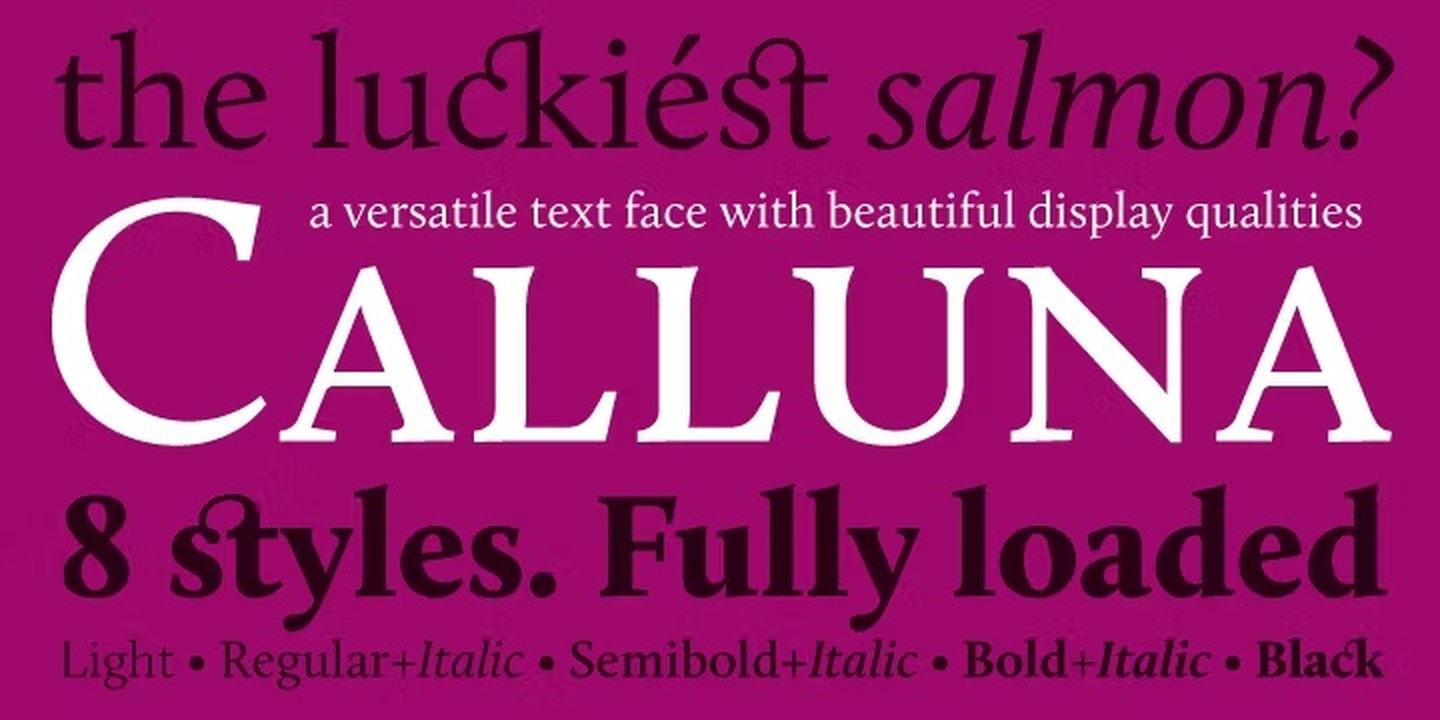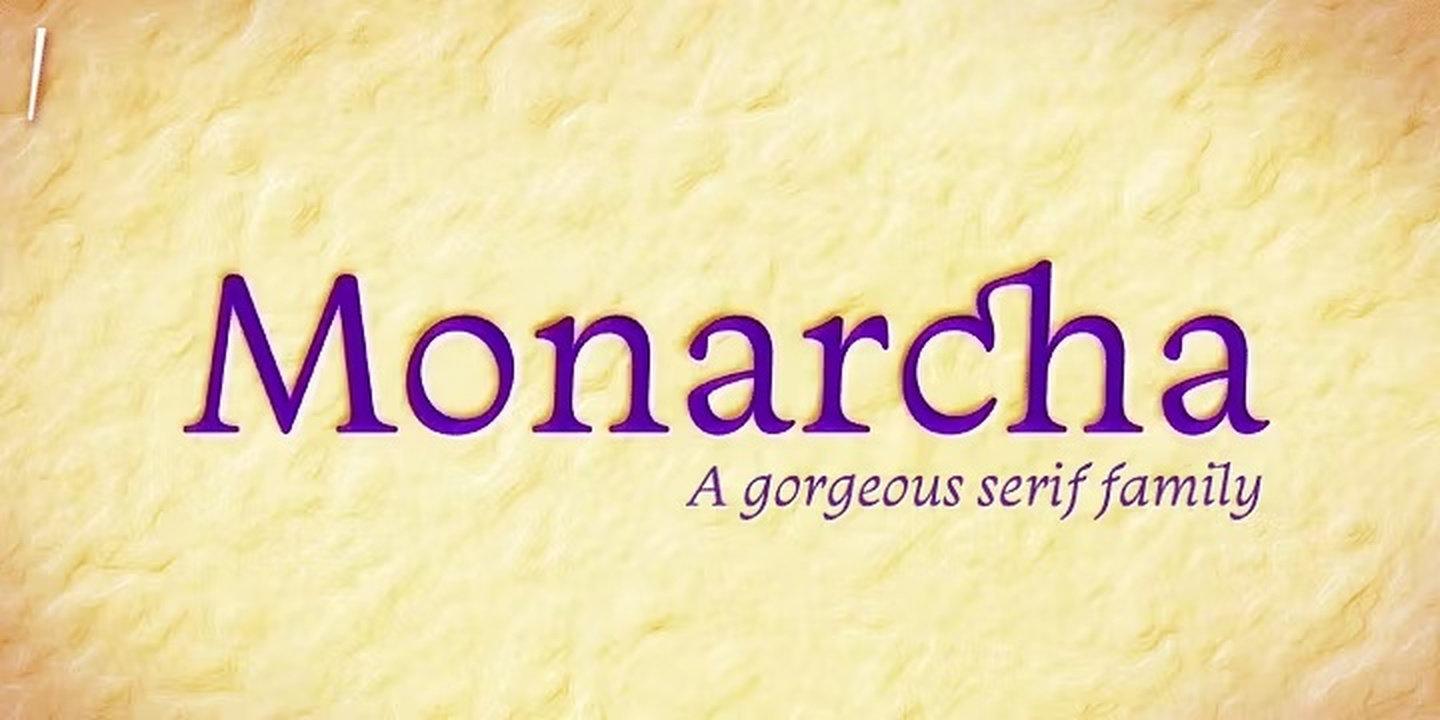
106 Serif Fonts for Logos, Branding and Print: Every Style in One Place
Serif fonts come in more moods than any other type style. The same small strokes at the ends of the letters can look romantic on a wedding invitation, serious in a book, loud on a poster or cosy on a coffee label.
This page brings together 106 serif fonts from five Fontspring collections on Font Inspiration, sorted into 17 styles. Every font appears only once, so each style shows you different typefaces. Find the style that fits your project, look at the previews and open the collection to see every font with notes on how to use it.
Quick Guide: Which Serif Style Do You Need?
| Your project | Serif style |
|---|---|
| Wedding invitations | Elegant Serif Fonts for Wedding Invitations |
| Skincare and beauty brands | Elegant Serif Fonts for Beauty Brands |
| Wine, candle and perfume labels | Elegant Serif Fonts for Luxury Labels |
| Fashion and luxury branding | High-Contrast Classic Serif Fonts |
| Logos and wordmarks | Bold Serif Fonts for Logos |
| Posters and campaigns | Bold Serif Fonts for Posters |
| Retro and vintage packaging | Vintage Bold Serif Fonts for Packaging |
| Cafés, labels and craft brands | Slab Serif Fonts |
| Menus and timeless brands | Classic Serif Fonts |
| Books and long reads | Classic Text Serif Fonts for Long Reads |
| Magazine covers and titles | Headline and Cover Serif Fonts |
| Blogs and websites | Contemporary Serif Fonts for Blogs and Websites |
29 Best Serif Fonts: Elegant, Classic, Bold and Slab
The widest mix in the cluster: four serif styles in one article, a good first stop when you are still deciding which direction fits your project.
Elegant Serif Fonts
High contrast, fine hairlines and graceful curves for weddings, beauty packaging and fashion headlines.
Classic Serif Fonts
Warm, readable serifs from book and newspaper printing for menus, books and brands that should feel timeless.
Bold and Retro Serif Fonts
Heavy weights with soft or flared serifs for posters, packaging and social media headlines.
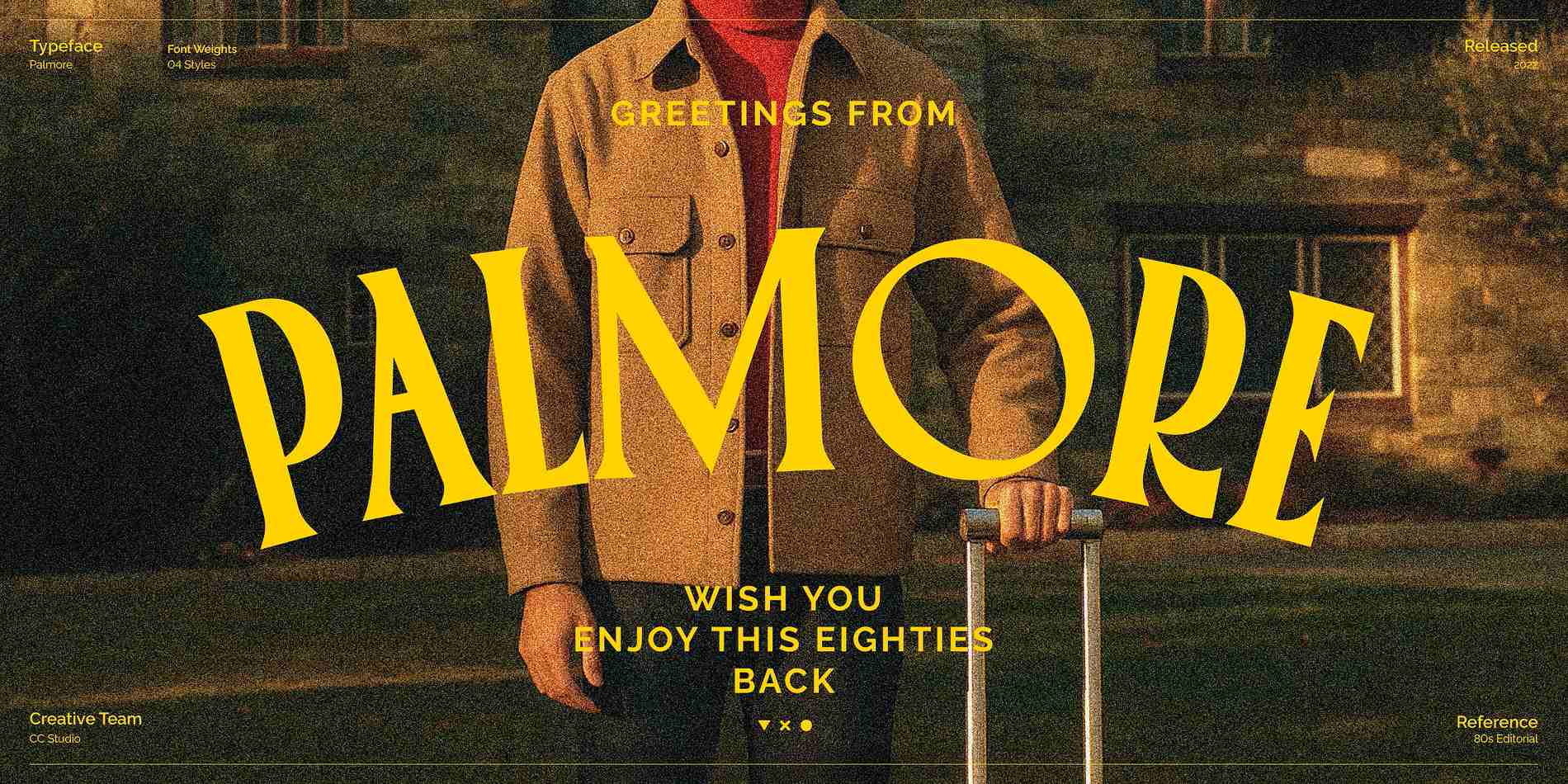
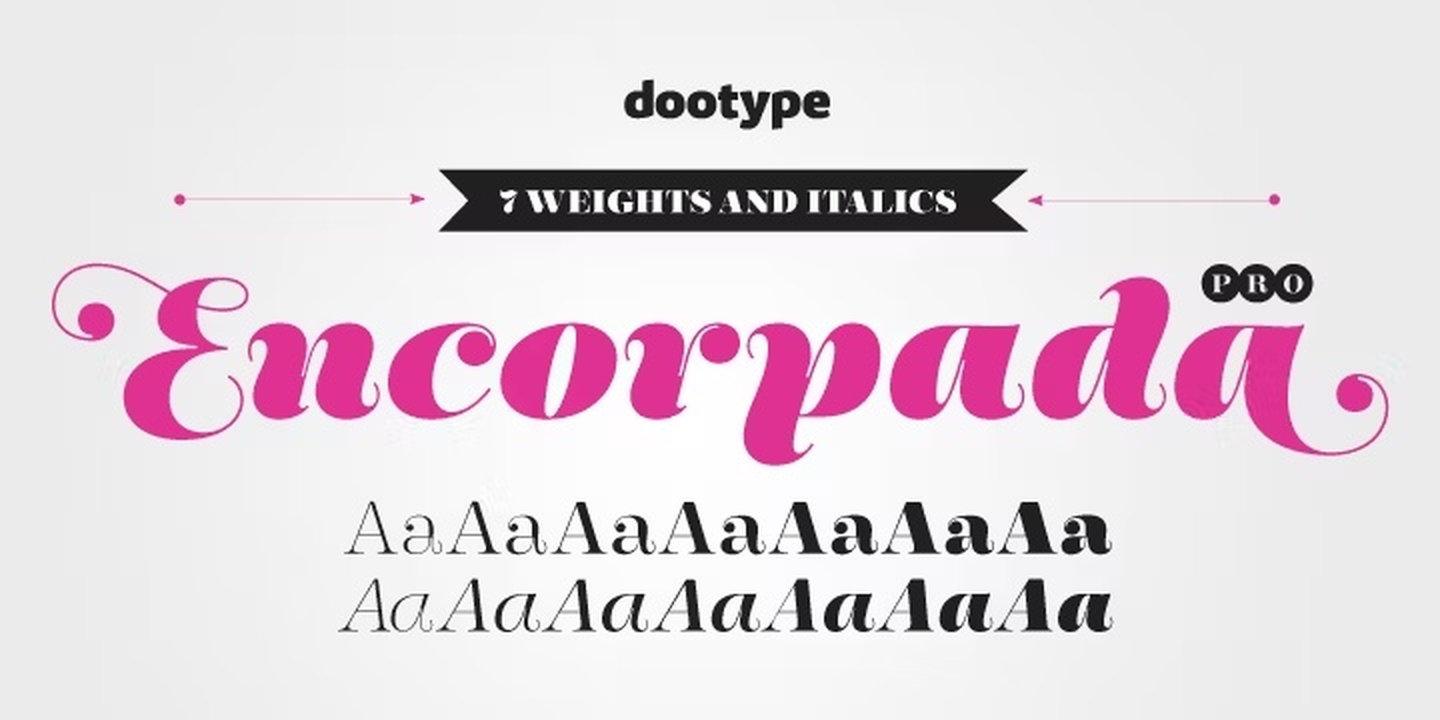
Slab Serif Fonts
Sturdy, block-like serifs for labels, signs, cafés and craft brands.
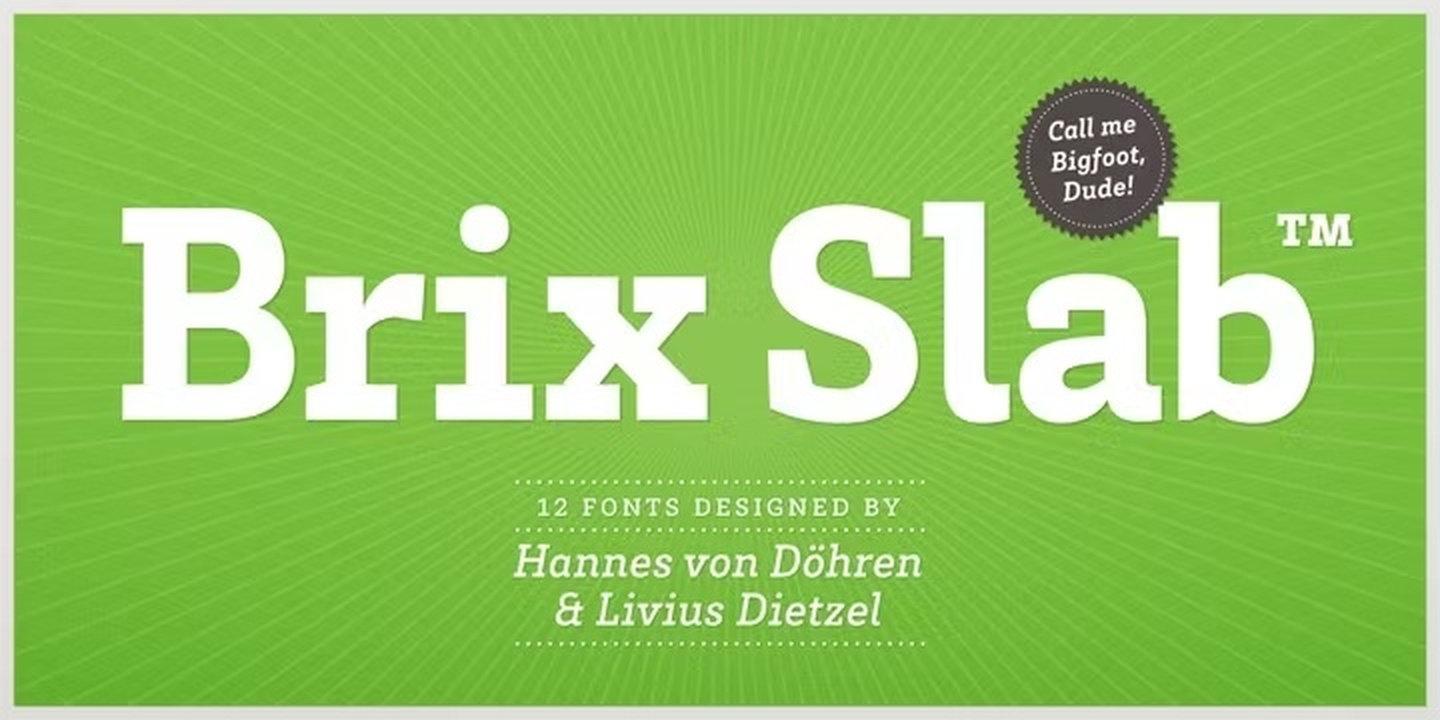
14 Elegant Serif Fonts for Weddings, Beauty and Luxury Labels
Refined serifs sorted by three jobs, each with its own mood: romantic, light or strong.
Elegant Serif Fonts for Wedding Invitations
Swashes, ligatures and romantic curves that make the couple’s names feel special while staying easy to read.
Elegant Serif Fonts for Beauty Brands
Light, airy serifs with clean spacing for skincare jars, cosmetic boxes and beauty social media.
Elegant Serif Fonts for Luxury Labels
Strong capitals and sharp contrast that give a bottle, a candle or a box instant presence.
25 Bold Serif Fonts for Logos, Posters and Vintage Packaging
The heaviest collection in the cluster, split between readable logo fonts, loud poster fonts and nostalgic packaging fonts.
Bold Serif Fonts for Logos
Dense, clear and confident serifs that keep a brand name readable on a sign and on a business card.
Bold Serif Fonts for Posters
High contrast, heavy weights and playful shapes for headlines, campaigns and event posters.
Vintage Bold Serif Fonts for Packaging
Soft curves, swashes and seventies details for labels, boxes and anything that should feel handmade.
20 Modern Serif Fonts for Brand Identity, Logos and Premium Packaging
Contemporary serifs for brands that should look current and polished, from sharp didones to soft text serifs.
High-Contrast Classic Serif Fonts
Bodoni and Didot-style designs with razor-thin hairlines for fashion, beauty and luxury labels.
Contemporary Display Serif Fonts
Distinctive display serifs with unusual details for brand identity and packaging.
Softer Serif Fonts for Brand Text
Calmer modern serifs that work for longer copy as well as for headings.
Italic Serif Fonts for Headlines and Accents
Two italic designs for a single word, a quote or an accent line that needs movement.
18 Editorial Fonts for Magazines, Books and Content-Rich Brands
Are serif fonts good for logos?
Yes. Serif logos look established and trustworthy. Bold serifs give a warm, confident wordmark, while elegant and modern serifs suit fashion, beauty and premium brands.
Why are there no repeated fonts across the collections?
Each collection was built from a fresh selection on Fontspring, and fonts already used in another article were left out. That way every style shows you new typefaces instead of the same favourites again.